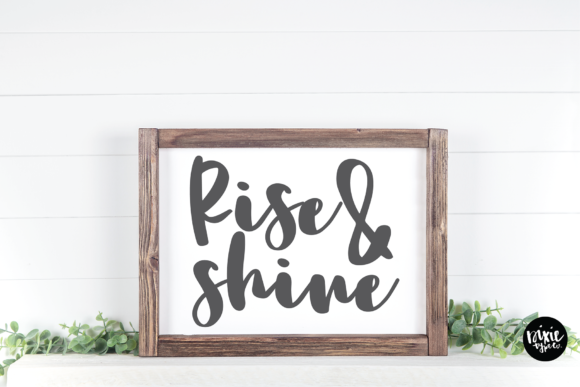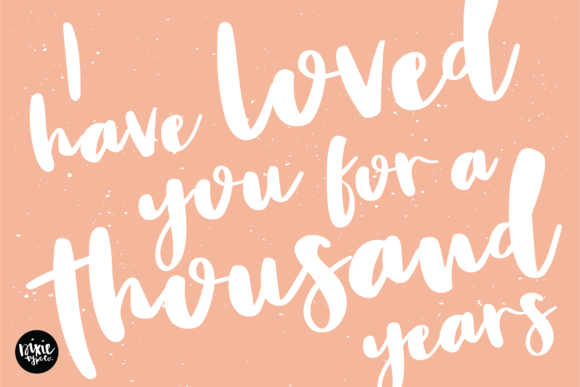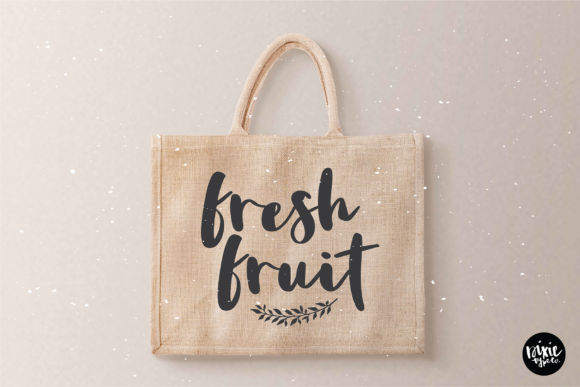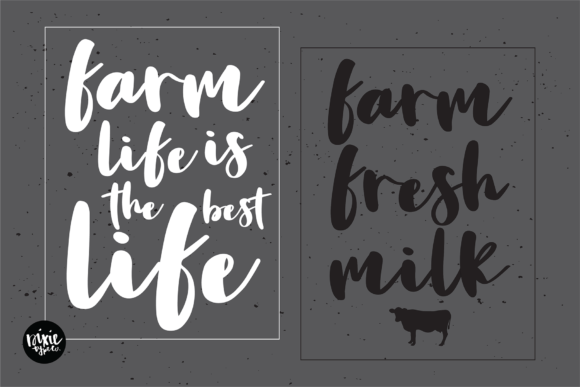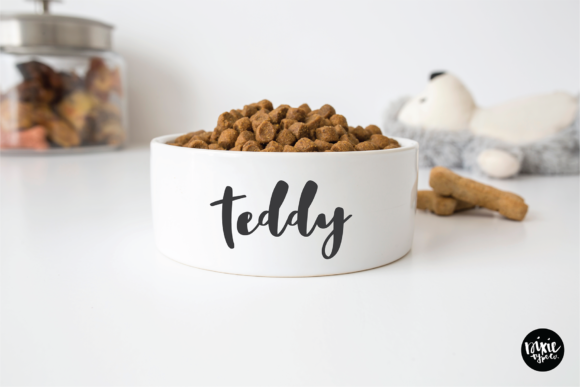
The Sweetest Addition to Your Design Toolbox
As designers, we’ve all been there – staring at a blank canvas, struggling to find the perfect font to bring our vision to life. It’s that moment when you realize the perfect script can make all the difference. For me, it was when I stumbled upon the Honey Bee Font – a whimsical handwritten font that immediately captured my heart.
With its classy calligraphic influences and contemporary feel, the Honey Bee Font is the perfect addition to any design project. Whether you’re working on branding, headings, wedding designs, or invitations, this font is sure to elevate your creations to new heights. As a valuable tool for designers, the Honey Bee Font offers endless possibilities for creative expression and versatility.
Honey Bee Font Key Features
- Unique Characteristics: Honey Bee Font features a unique blend of modern and vintage elements, with intricate details and subtle textures that evoke a sense of nostalgia and charm.
Honey Bee Font Review
I recently had the chance to work with the Honey Bee Font, and I must say it’s a unique addition to any design project. ✨ The font’s playful, handwritten feel adds a touch of warmth and personality to any text. It’s perfect for branding, advertising, or any project that requires a friendly, approachable tone.
Here are some of the things I liked about the Honey Bee Font:
- ✨ Unique, handwritten feel that sets it apart from more common fonts
- ✨ Perfect for branding, advertising, or any project that requires a friendly tone
- ✨ Highly customizable, making it easy to tailor to specific design needs
- ⚠️ May not be suitable for formal or professional projects, due to its casual feel
- ⚠️ Limited character set, which may not be ideal for longer texts or complex layouts
Overall, I was impressed with the Honey Bee Font’s unique personality and flexibility. While it may not be the best choice for every project, it’s definitely worth considering for designs that require a friendly, approachable tone.
The Honey Bee Font is ideal for designs that require a playful, whimsical touch, such as:
– Children’s book illustrations
– Food labels and packaging
– Stationery and greeting cards
– Branding and advertising materials
Tips for Getting the Most Out of the Honey Bee Font
For optimal results, use the Honey Bee Font in conjunction with bright, bold colors and playful graphics. Experiment with different font sizes and styles to create visual interest and emphasis.